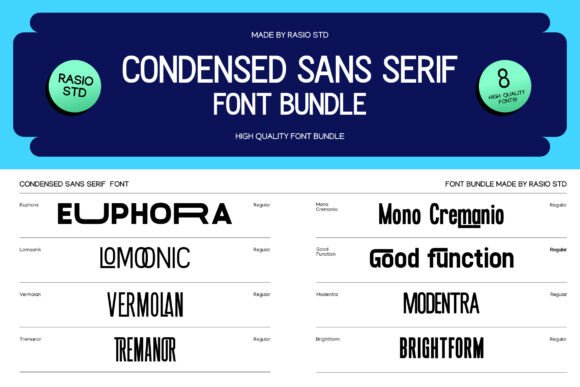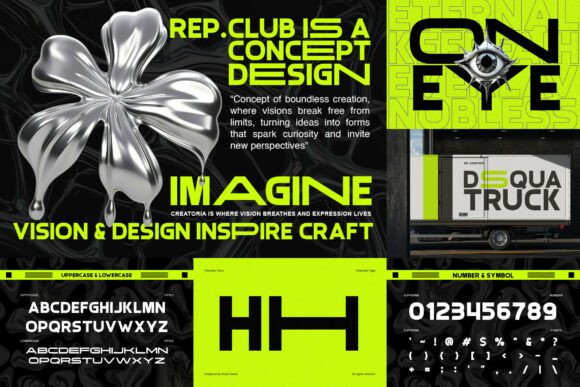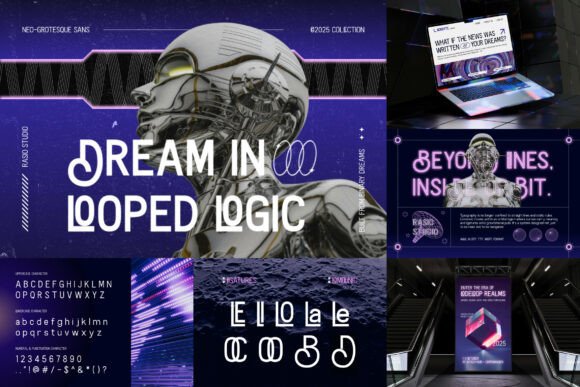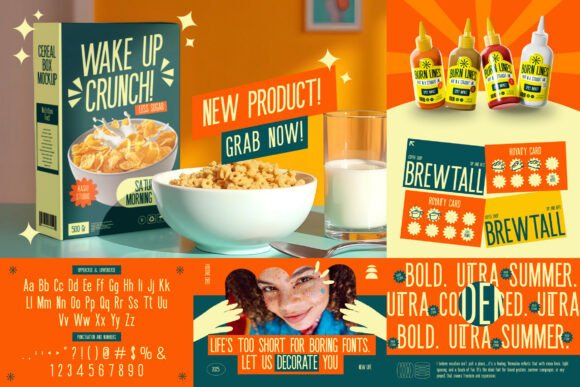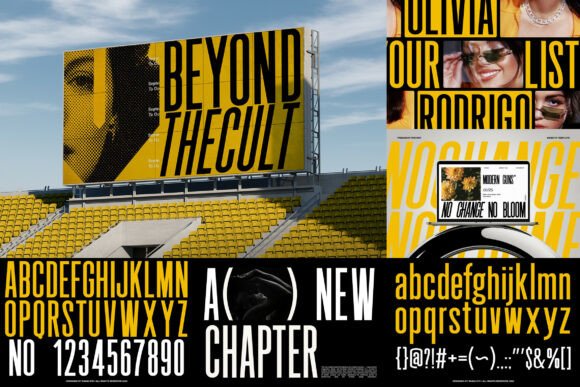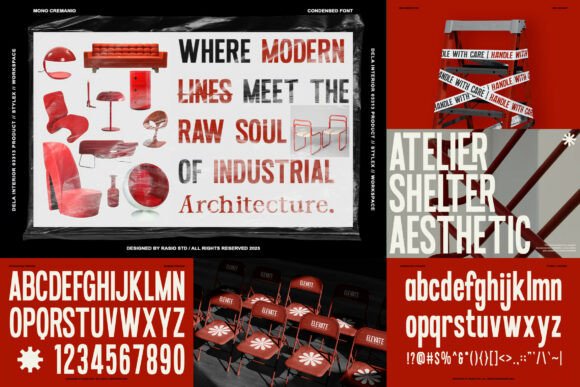
Unlock Endless Design Possibilities with the Condensed Sans Serif Bundle Font
In the world of typography, finding the perfect font that balances style, readability, and space efficiency can be a daunting task. However, with the Condensed Sans Serif Bundle Font, designers and crafters can now elevate their projects with a modern type collection that ticks all the right boxes. This comprehensive bundle is specifically designed for clarity, efficiency, and strong visual impact, making it an indispensable asset for any creative endeavor.
What is the Condensed Sans Serif Bundle Font?
The Condensed Sans Serif Font Bundle is a thoughtfully curated collection of modern sans serif fonts, each crafted with a condensed structure that lends itself perfectly to a variety of design applications. From sleek headlines and editorial layouts to striking posters and cohesive branding systems, this bundle provides a versatile typographic solution that meets the demands of both print and digital projects.
Key Features of the Condensed Sans Serif Bundle Font
- Clean and Tightly Spaced Letterforms: The fonts in this bundle boast clean, uncluttered lines and are tightly spaced, ensuring maximum readability even in the most compact of layouts.
- Range of Styles: The bundle offers a diverse range of styles, from minimal and functional to bold and expressive. This variety gives designers the flexibility to choose the perfect look for their project, whether it’s a subtle background text or a headline that demands attention.
- Condensed Structure: The hallmark of this font bundle is its condensed structure. This feature allows designers to save space without compromising on readability or style, making it ideal for layouts where space is limited.
- Modern, Professional, and Timeless: The fonts are designed with a modern aesthetic that feels professional and timeless. This ensures that projects won’t look dated anytime soon, providing long-term value for designers and businesses alike.
Applications of the Condensed Sans Serif Bundle Font
The versatility of the Condensed Sans Serif Bundle Font makes it suitable for a wide range of applications, including:
- Headlines and Titles: The bold and expressive styles within the bundle are perfect for creating eye-catching headlines and titles that capture the reader’s attention.
- Editorial Layouts: For magazines, newspapers, and digital publications, the fonts offer a clean and readable solution that enhances the reader’s experience.
- Posters and Flyers: The condensed sans serif fonts make for compelling posters and flyers, especially when space is limited but impact is crucial.
- Branding Systems: For businesses looking to establish a strong visual identity, this font bundle provides a cohesive and professional solution that can be applied across various platforms.
- User Interfaces: The clean and modern aesthetic of the fonts makes them suitable for UI design, enhancing the usability and visual appeal of digital products.
Why Choose the Condensed Sans Serif Bundle Font?
Choosing the right font can significantly impact the success of a design project. Here are a few reasons why the Condensed Sans Serif Bundle Font stands out:
- Efficiency: The condensed nature of the fonts means you can convey your message effectively without taking up too much space.
- Readability: Despite their condensed structure, the fonts maintain high readability, ensuring your message is easily understood.
- Versatility: With a range of styles to choose from, you can use the bundle across multiple projects, from editorial design to digital interfaces.
- Modern Appeal: The fonts have a distinctly modern feel that will give your projects a contemporary edge.
| Font Name | Condensed Sans Serif Bundle Font |
| Author | product.rasiostudio |
The Condensed Sans Serif Bundle Font is a powerful tool for designers and crafters looking to elevate their typography. With its blend of modern style, efficiency, and versatility, this font bundle is poised to become an essential part of your design arsenal. Whether you’re working on a branding project, laying out a magazine, or designing a user interface, this bundle delivers a flexible and impactful typographic solution that meets the demands of today’s fast-paced design environment.
By incorporating the Condensed Sans Serif Bundle Font into your workflow, you’re not just choosing a font; you’re investing in a design solution that combines functionality with aesthetic appeal. Experience the difference that high-quality typography can make in your projects.